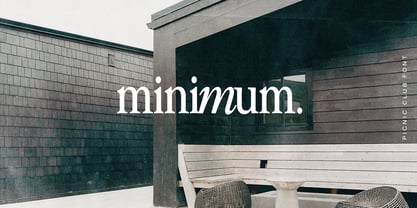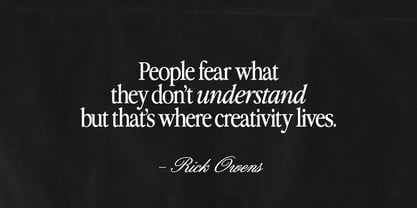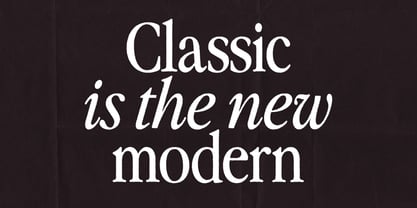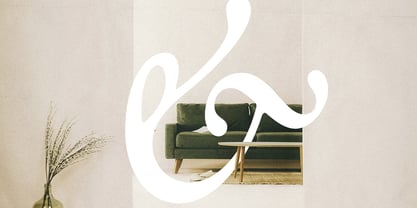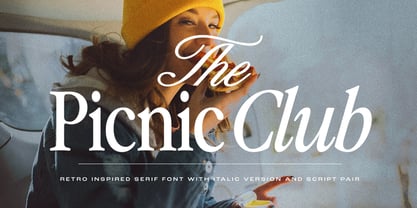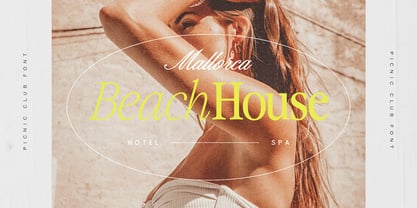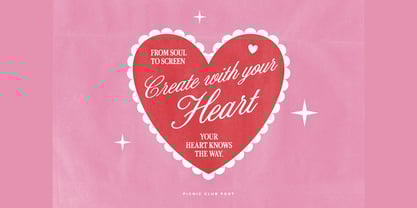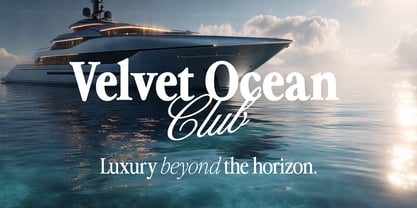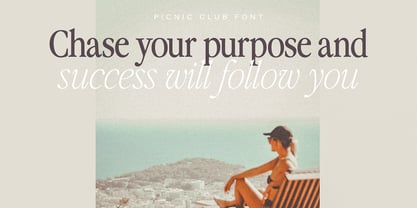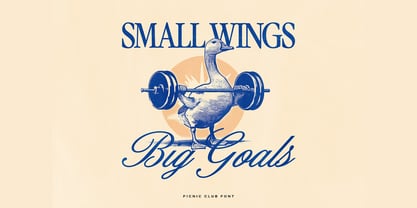
The Picnic Club
The The Picnic Club Font Family was designed by Ivan Rosenberg and published by Ivan Rosenberg. The Picnic Club contains 11 styles and family package options. More about this family
The Picnic Club – Nostalgic Serif is a stylish vintage font inspired by the groovy vibe of the 80s, infused with a touch of modern elegance. Originally designed as a display serif for impactful headlines and retro-inspired branding, the font has now evolved into a complete type system.
The Picnic Club family includes:
• 10 weights – from delicate Thin to ExtraBold, allowing for greater flexibility and dynamic visual hierarchy;
• Script font – crafted to complement the serif styles with a playful, handwritten flow;
This expanded collection brings even more possibilities to your design toolkit. Whether you’re working on nostalgic mood boards, editorial layouts, packaging, logotypes, or modern vintage branding, The Picnic Club is designed to elevate your message with charm, warmth, and character.
Perfectly suited for:
• Display typography
• Brand identities
• Advertising & packaging
• Titles & headlines
• Editorial design
• Retro and contemporary aesthetics
Let your designs dance between nostalgia and now—with a type family that speaks fluently in both.